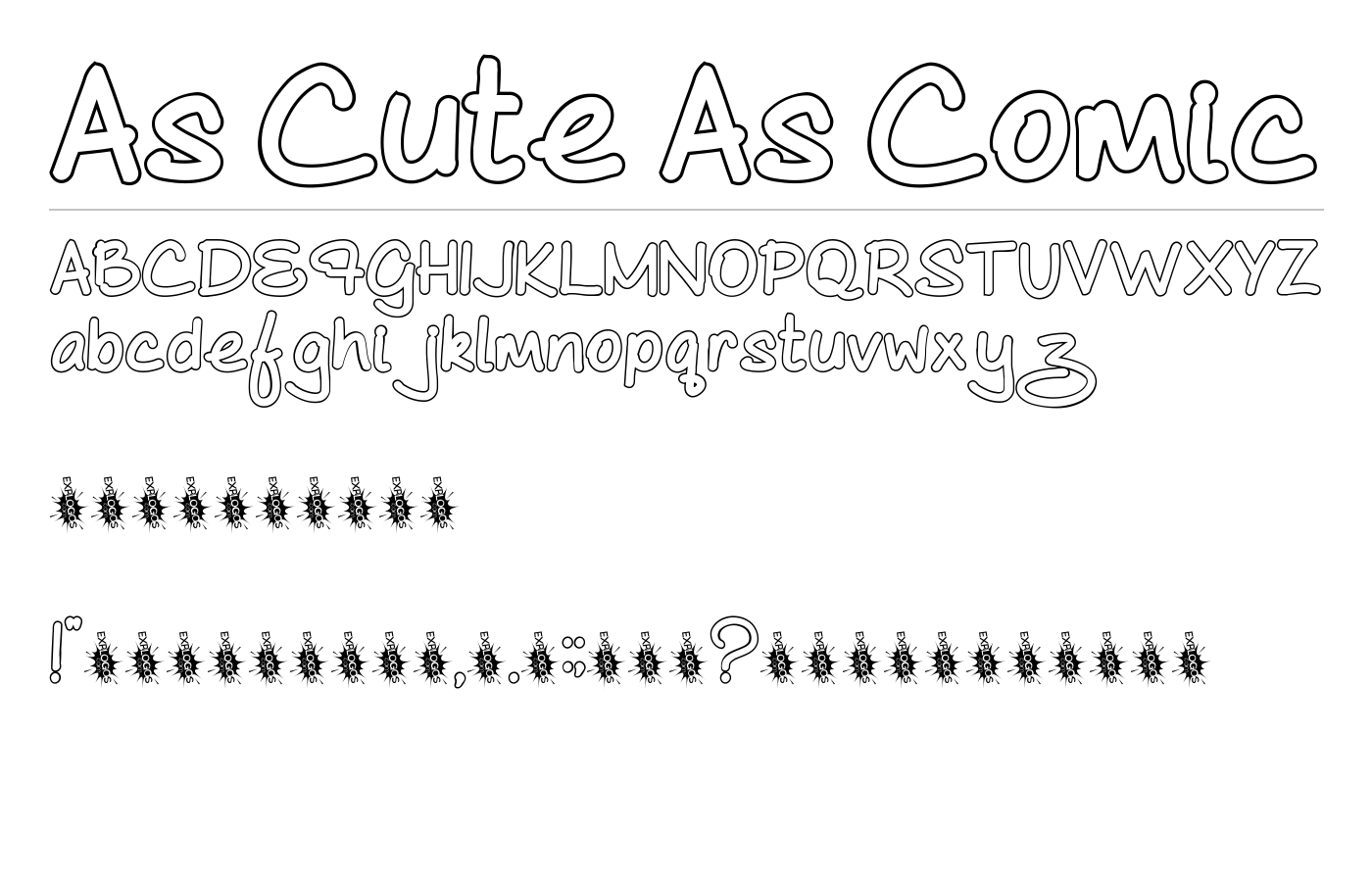
As Cute As Comic is a playful, hand-drawn sans serif font with a light, rounded stroke that gives it a friendly and approachable feel. Its casual, slightly irregular letterforms and handwritten style make it perfect for fun, informal designs such as children’s books, comics, or creative branding. This font works well for headlines and display use where a warm, cheerful personality is desired.
As Cute As Comic Font
About As Cute As Comic Font